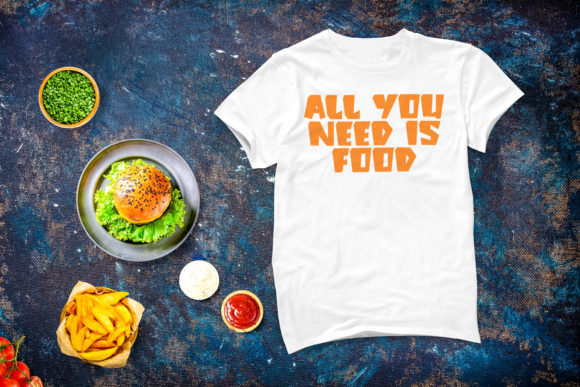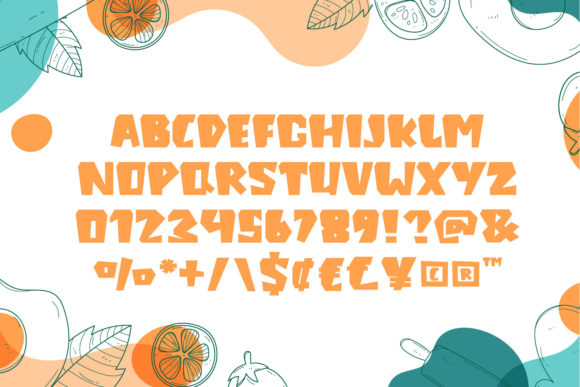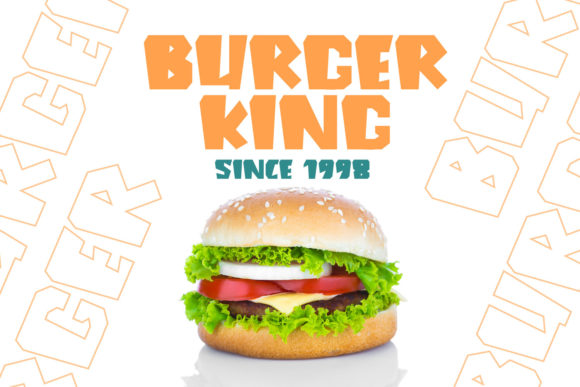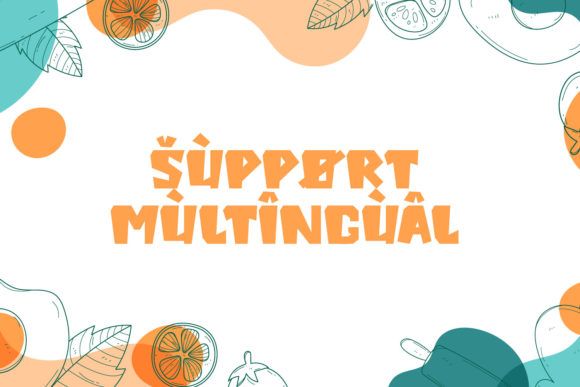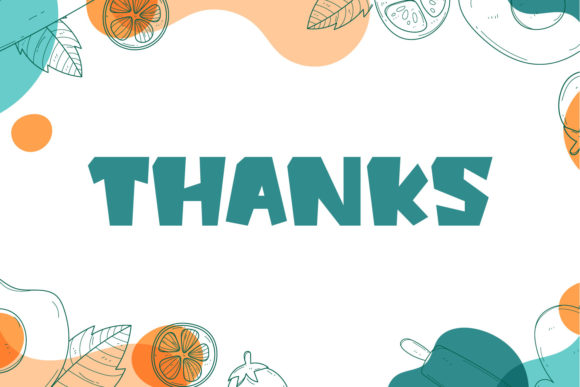
Introduction to King Food Font
Remember that moment when you stumbled upon the perfect design resource for your creative project? It’s the moment when everything clicks into place, and your vision starts to take shape. For designers, finding the right font can be a game-changer, and that’s exactly what we’re about to introduce you to – the King Food Font.
This adorable display font is more than just a pretty face; it’s a reflection of playfulness and authenticity that’s sure to bring a smile to your face. With its transparent background and high-quality design, King Food Font is the perfect choice for any children’s activity or school project that requires a touch of whimsy.
Key Features of King Food Font
- High-quality font design with a unique, playful style suitable for creative projects and food-related businesses.
- Features a transparent background, allowing for easy placement over images and other design elements.
- Designed with a clean and modern aesthetic, making it perfect for use in menus, advertisements, and other marketing materials.
- Perfect for designers working on food-related projects, including restaurants, cafes, and food bloggers, as well as any business looking for a unique and eye-catching font.
Honest Review: King Food Font
I recently had the chance to use the King Food Font in a creative project, and I’m excited to share my thoughts on this design resource.
- ✨ High-quality font design: The King Food Font has a clean, modern aesthetic that works well in a variety of contexts.
- ✨ Transparent background: This font is perfect for designs that require a transparent background, making it easy to layer and combine with other elements.
- ⚠️ Limited language support: The King Food Font is currently only available in a limited number of languages, which may be a limitation for designers working on global projects.
- ⚠️ Limited customization options: While the font design is clean and modern, there are limited customization options available, which may not be ideal for designers who want more control over their design.
Overall, I’m impressed with the King Food Font and would recommend it to designers working on creative projects. While there are some limitations, the high-quality design and transparent background make it a valuable resource for any design project.
Tips for Getting the Most Out of King Food Font
To get the most out of King Food Font, use it on a transparent background to create a seamless design. Experiment with different font sizes, colors, and combinations to achieve a unique look.
King Food Font is suitable for various creative projects, including:
- Restaurant menus and food branding
- Food blog and recipe websites
- Event invitations and party decorations
- Product packaging and labeling